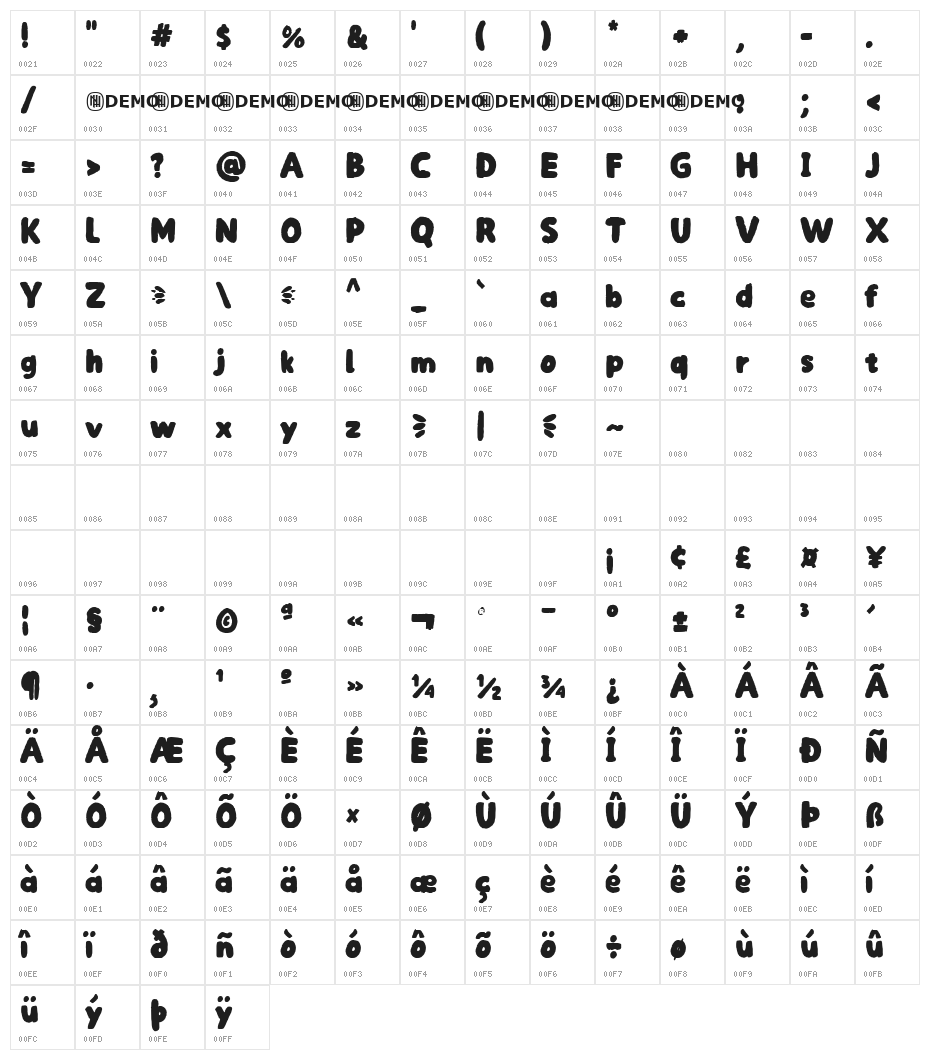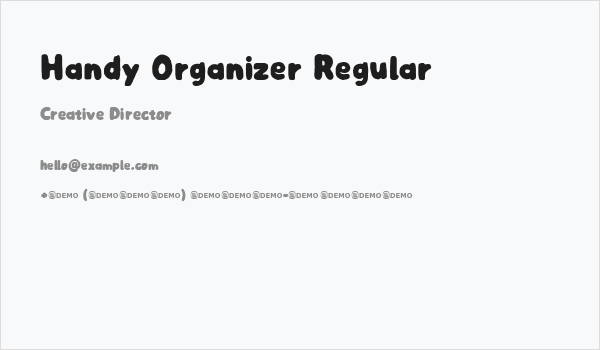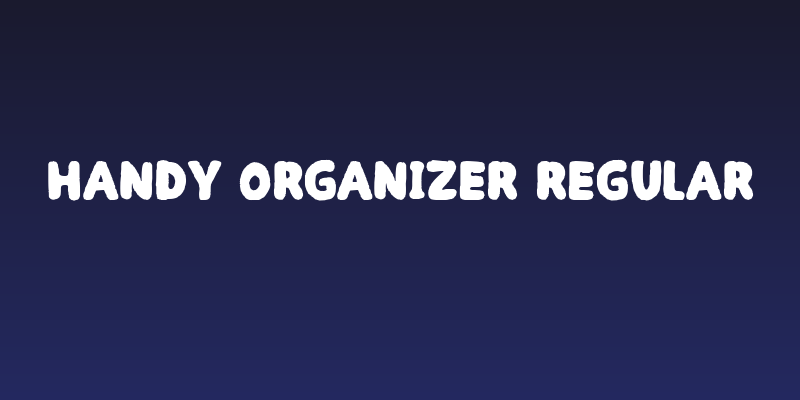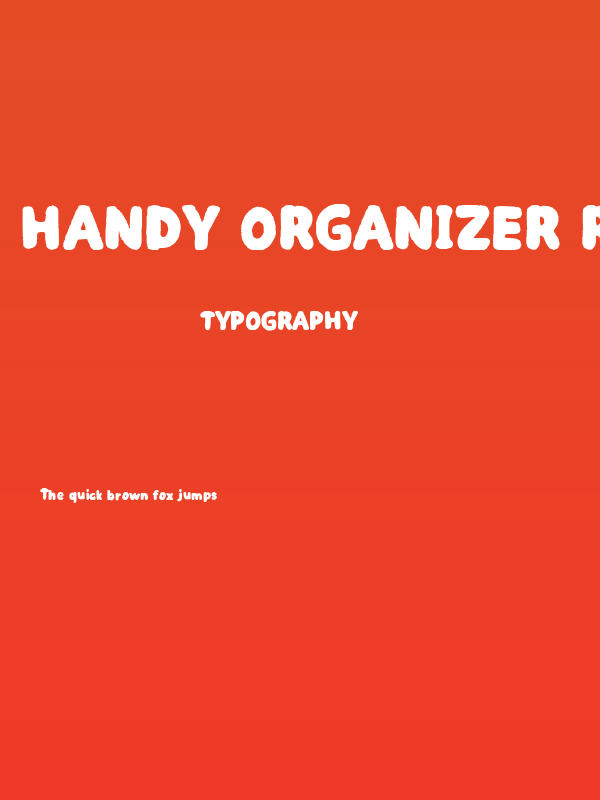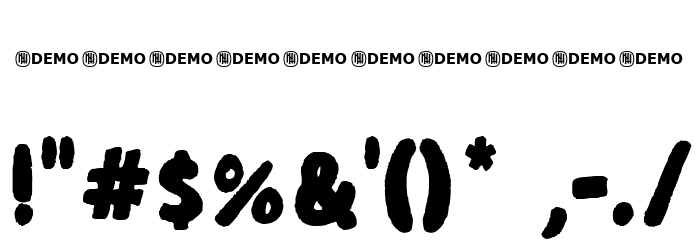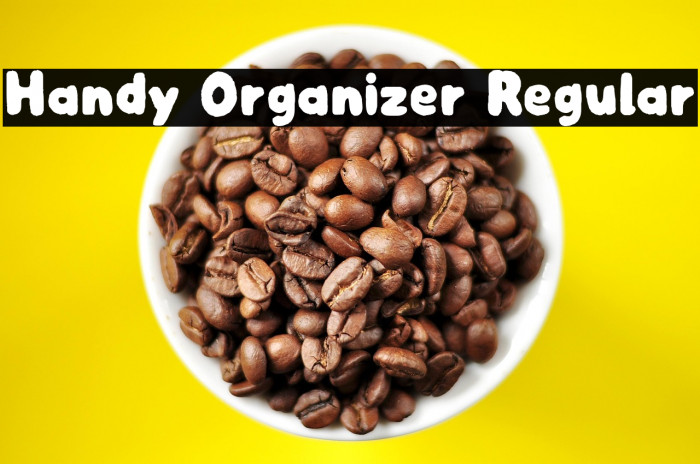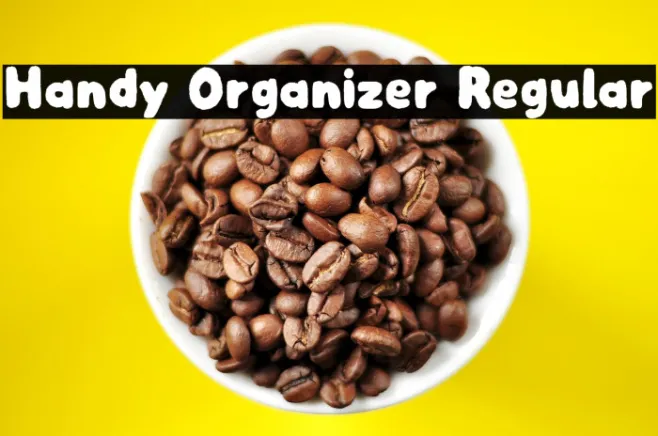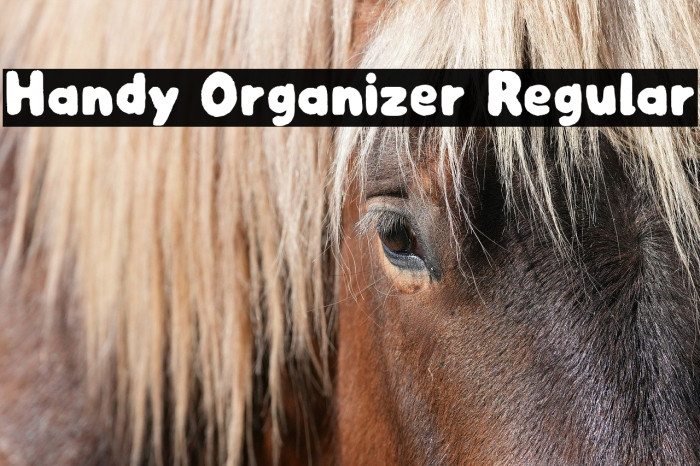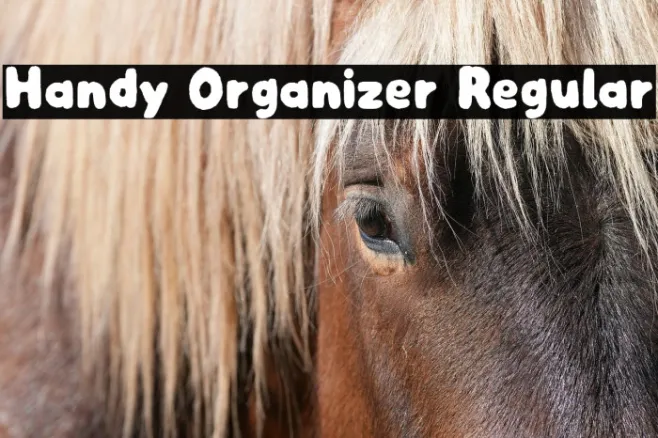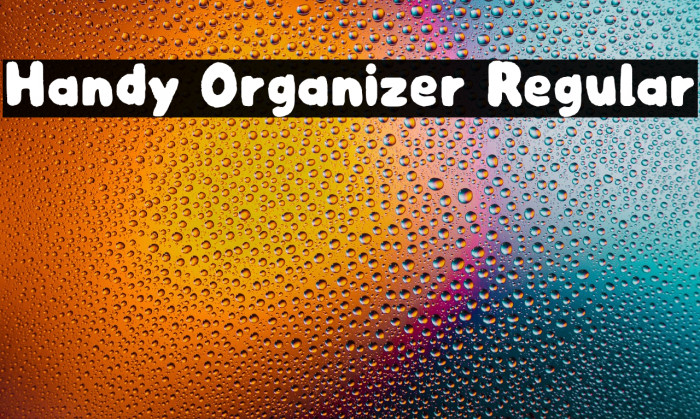
Handy Organizer Regular Font
Handy Organizer Regular Description
This font features a playful and bold design with rounded edges and a hand-drawn aesthetic. The characters are thick and have a slightly irregular shape, giving them a casual and friendly appearance. The uppercase and lowercase letters maintain a consistent style, with a noticeable weight that makes them stand out. The numbers and special characters follow the same design principles, ensuring uniformity across all elements. This font is ideal for projects that require a fun and approachable look, such as children's books, posters, or branding for creative businesses.
| Proposed Projects | Ideal for children's books, playful posters, and creative branding. |